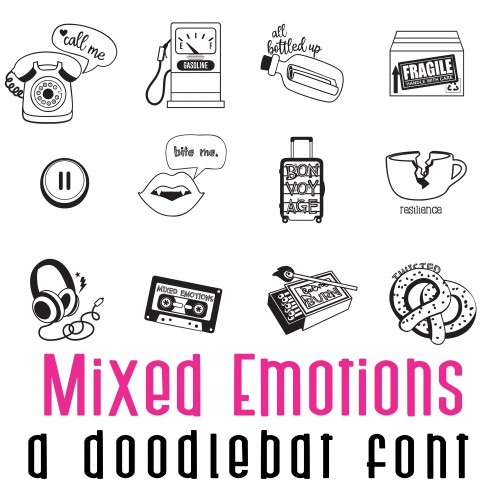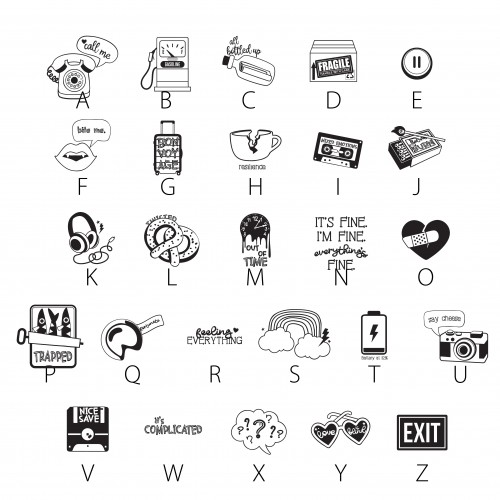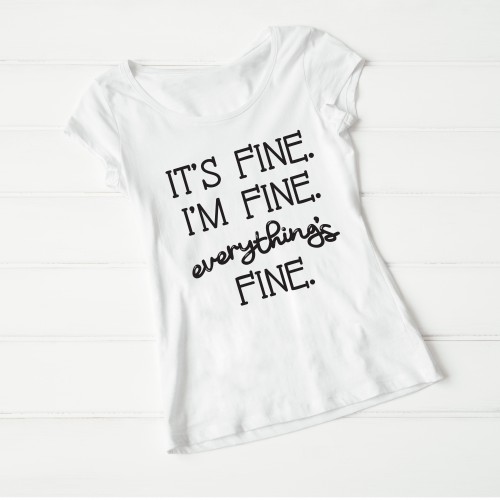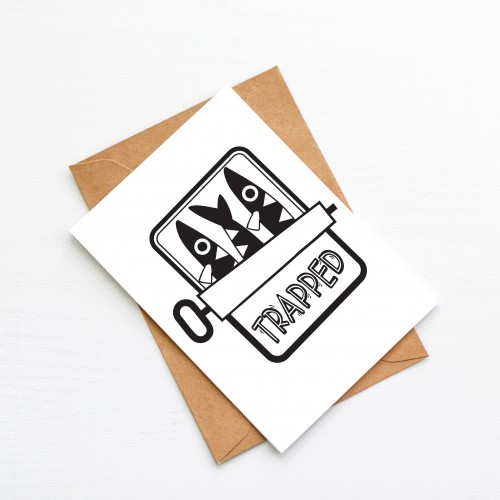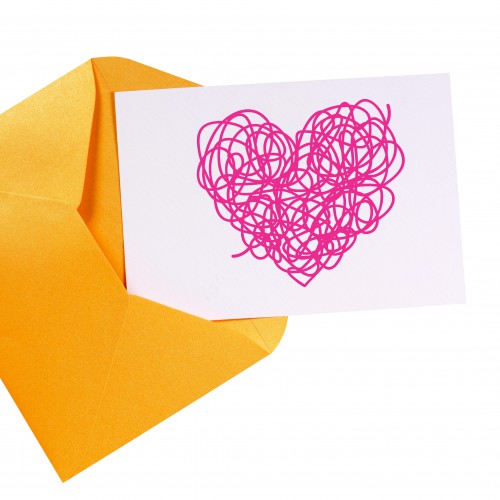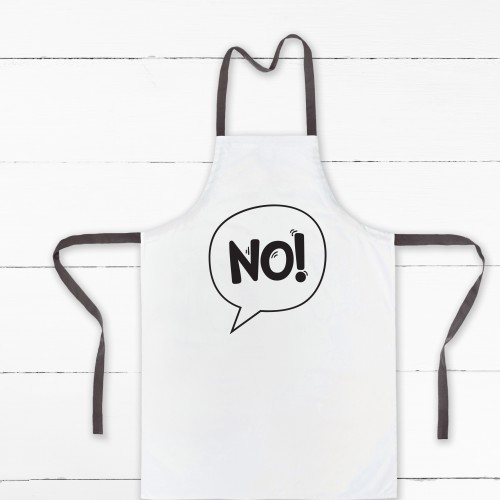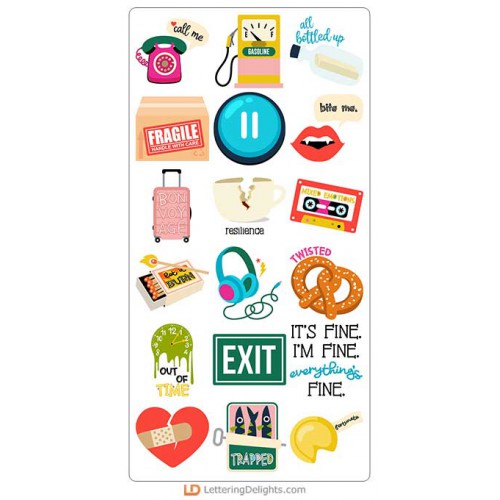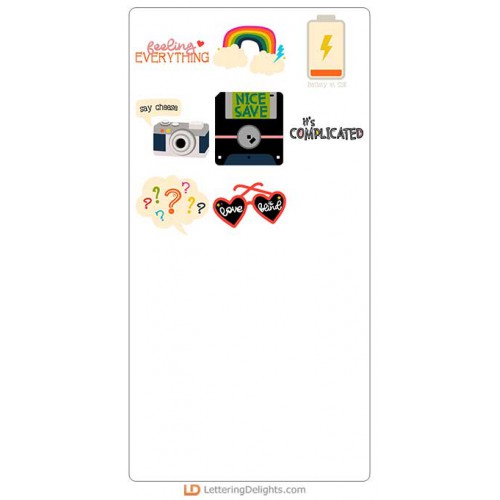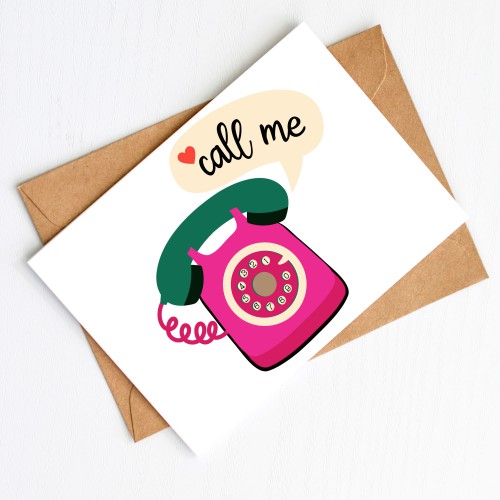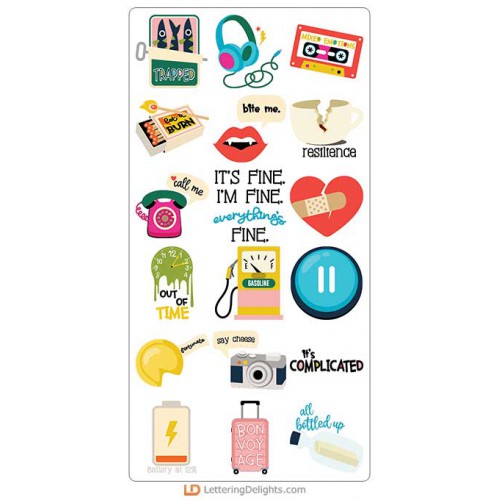
Mixed Emotions - Big Bundle
This fun collection features whimiscal and illustrated emotions. Perfect for cards, crafts, gifts, planner stickers, scrap book pages, classrooms and more!
DB Mixed Emotions - DB
This fun doodlebat font features 26 whimiscal and illustrated emotions. Perfect for cards, crafts, g..
DB Mixed Emotions - Too - DB
This fun doodlebat font features 26 more whimiscal and illustrated emotions. Perfect for cards, craf..
Mixed Emotions - GS
This fun graphic set features 26 whimiscal and illustrated emotions. Perfect for cards, crafts, gift..
Mixed Emotions - CS
This fun cuttable graphic set features 26 whimiscal and illustrated emotions. Perfect for cards, cra..
Mixed Emotions - Too - GS
This fun graphic set features 26 more whimiscal and illustrated emotions. Perfect for cards, crafts,..
Mixed Emotions - Too - CS
This fun cuttable graphic set features 26 more whimiscal and illustrated emotions. Perfect for cards..
Mixed Emotions - CP
Create fun gift boxes and gift card holders with this fun whimiscal cut project that coordinates wit..
Mixed Emotions - AL
This fun alphabet coordinates with our Mixed Emotions Collection...
Mixed Emotions - PP
This whimsical paper pack coordinates with our Mixed Emotions Collection...